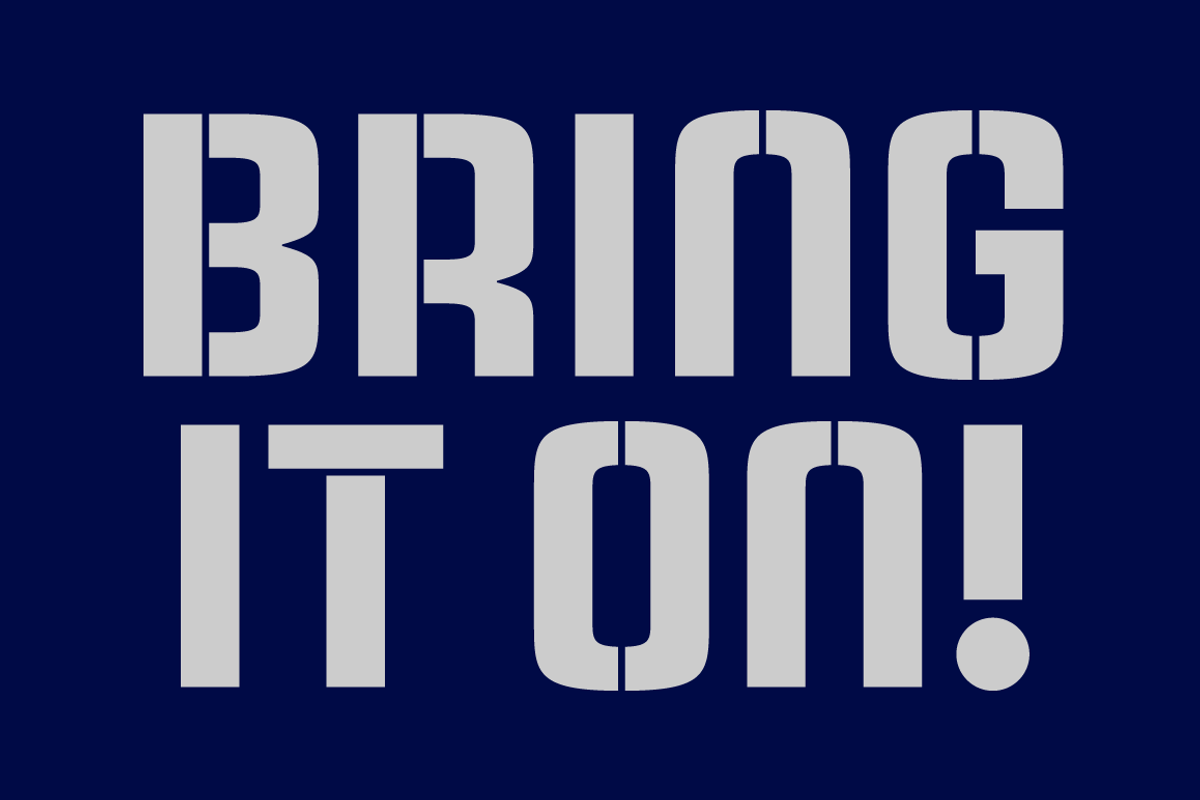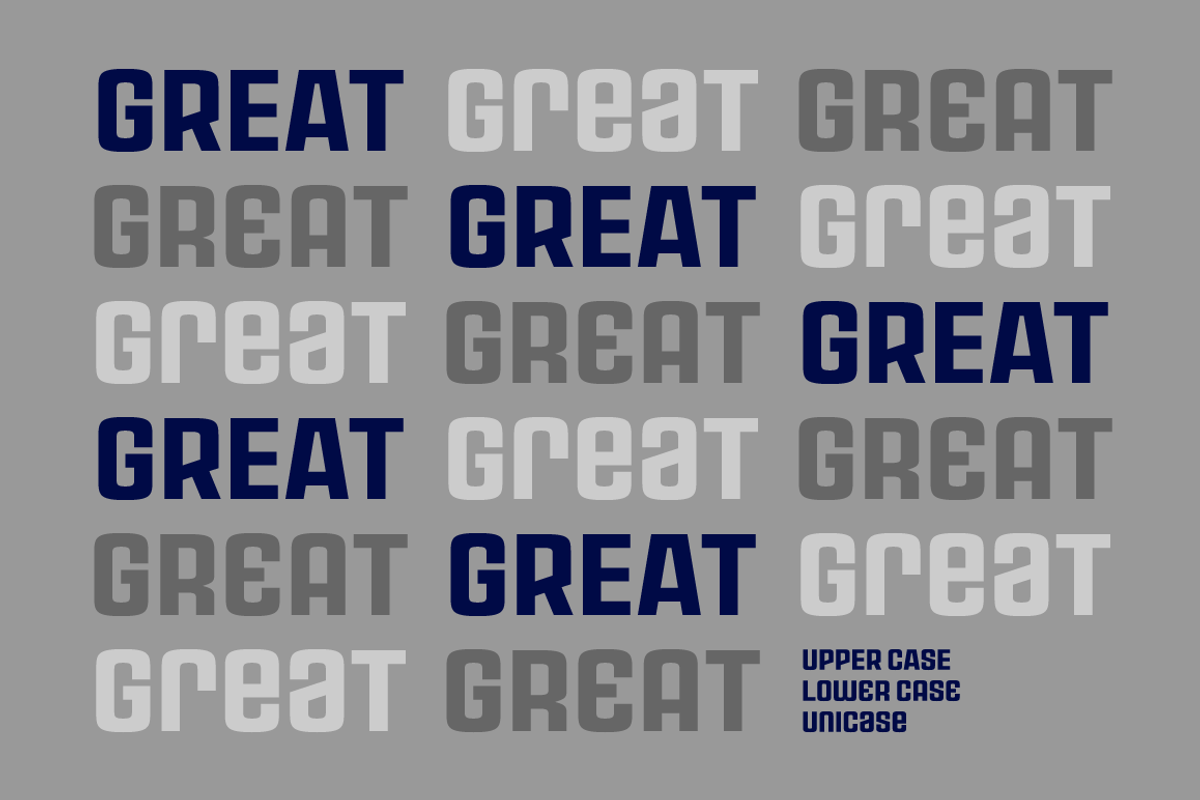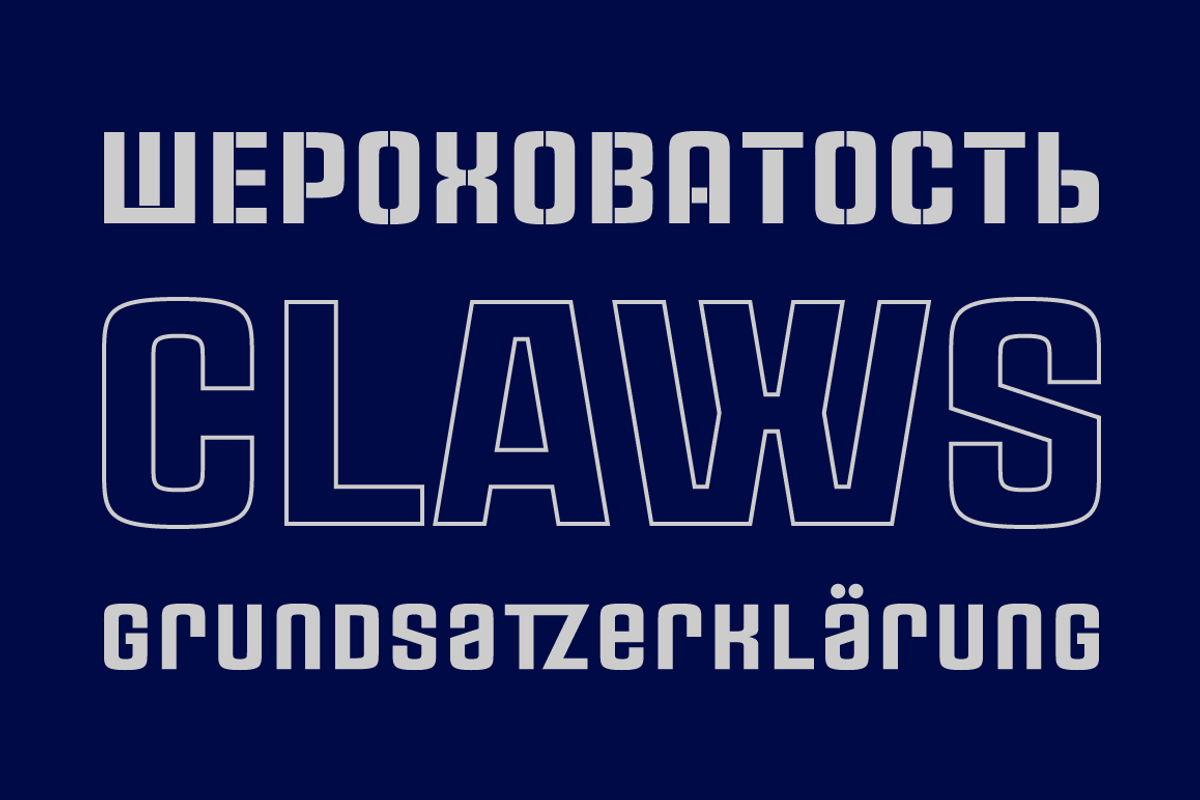
Rauda Font Family
Rauda Font Family by Graviton Font Foundry is a font selected for branding, posters, packaging, typography.
- Rauda Inline Regular
- Rauda Outline Regular
- Rauda Inline Unicase Regular
- Rauda Outline Unicase Regular
- Rauda Solid Regular
- Rauda Solid Unicase Regular
- Rauda Stencil Regular
- Rauda Stencil Unicase Regular
Why Rauda Font Family is worth a look
Rauda Font Family by Graviton Font Foundry fits naturally into Branding, posters, packaging, typography.